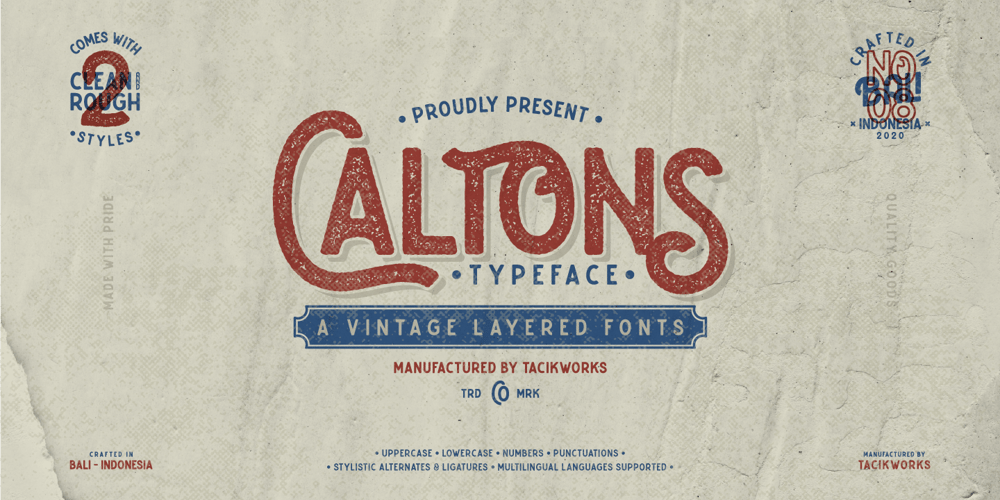
Caltons Typeface
Caltons Typeface font
Caltons Typeface Font Family was designed by Ivan Yahya and published by Tacikworks. Caltons Typeface contains 3 styles and family package options. Proudly present Caltons Typeface. This font is inspired by vintage designs with clean and rough lines. Make the classic impression of this font stand out more. This font has approximately 600 glyph characters including uppercase, lowercase, discretionary ligatures and standard ligatures alternatives. It is suitable for creating vintage designs such as logo posters, merchandise, clothing, brochures, business cards and others.It can be accessed by using Open Type savvy programs like Adobe Illustrator and Adobe InDesign. features can be accessed by using Open Type save programs such as Adobe Illustrator, Adobe InDesign, Adobe Photoshop, Corel Draw X version and Microsoft Word. And this has given PUA unicode font (specially coded fonts). So that all the alternate characters Easily can be accessed in full by a Craftsman or designer.Features: Uppercase Lowercase Numbers Punctuations Stylistic Alternates & Ligatures Multilingual Languages Supported Format File: TTF,OTF, Web HOW TO ACCESS ALTERNATE CHARACTERS Open Glyphs Panel: In Adobe Photoshop go to Window – glyphs In Adobe Illustrator go to Type – glyphsPlease contact us if you have any question!